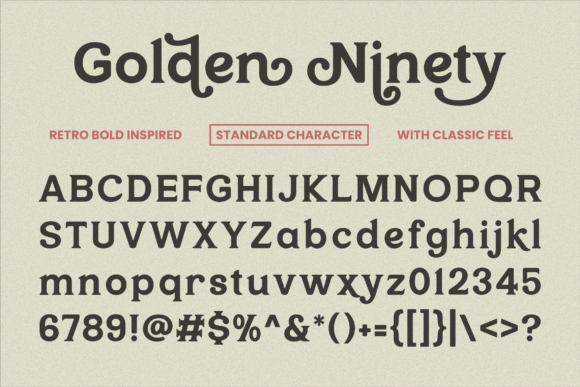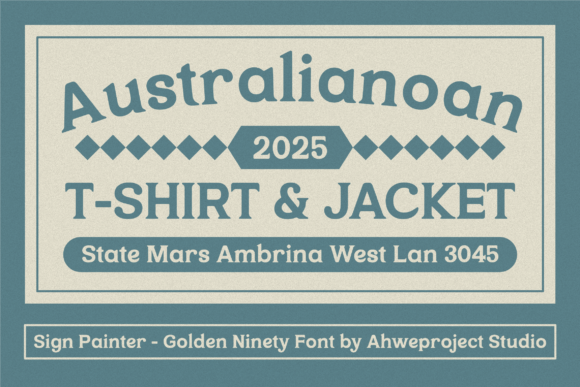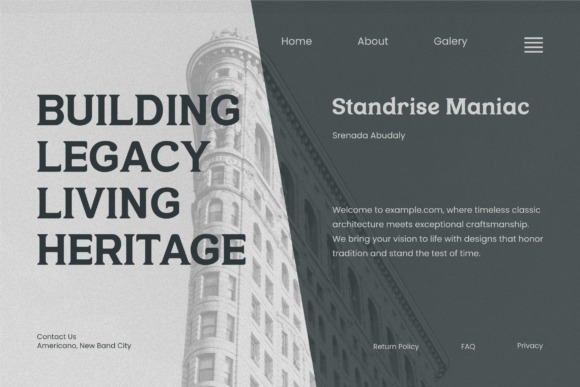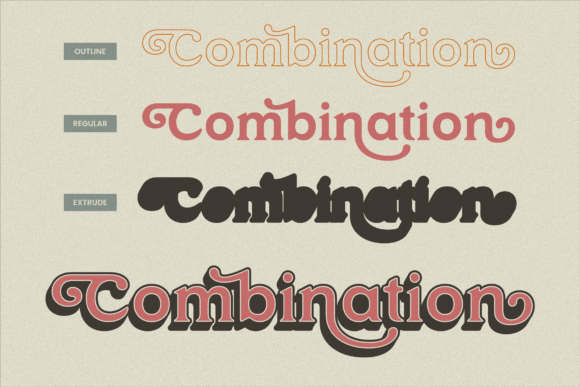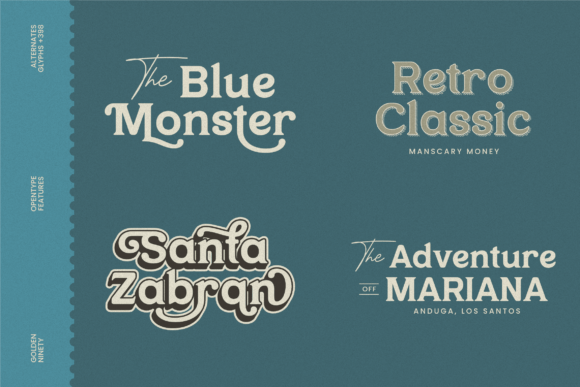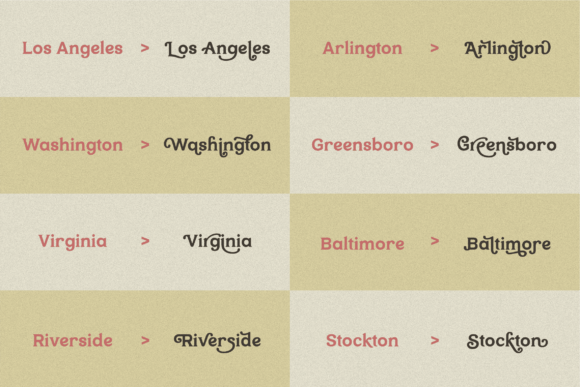
Introduction to Golden Ninety Font
Golden Ninety is a bold and elegant typeface with a vintage flair, showcasing playful curves and artistic details.
The design combines retro aesthetics with modern typography, making it versatile for branding, headlines, or creative projects Each letter in Golden Ninety features dynamic swirls and clean outlines, exuding a sense of sophistication and nostalgia.
Key Features of Golden Ninety Font
Why Choose Golden Ninety Font?
Golden Ninety Font offers exceptional quality and versatility, making it a valuable addition to your design toolkit. Whether you’re creating for personal projects or commercial use, Golden Ninety Font delivers professional results.